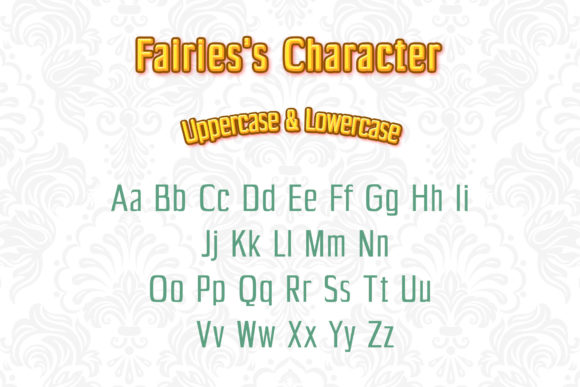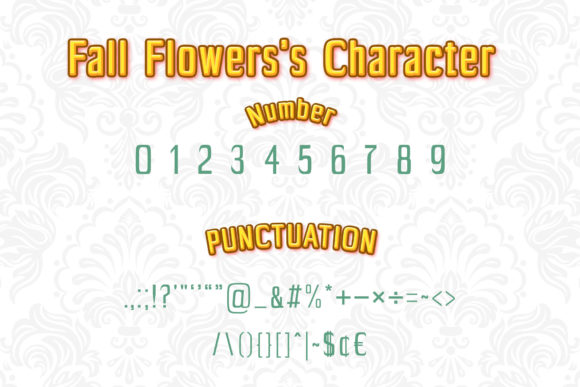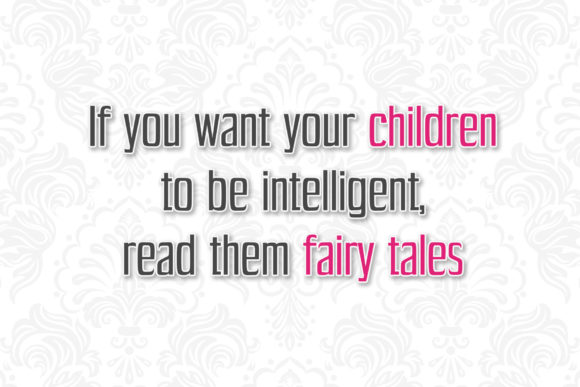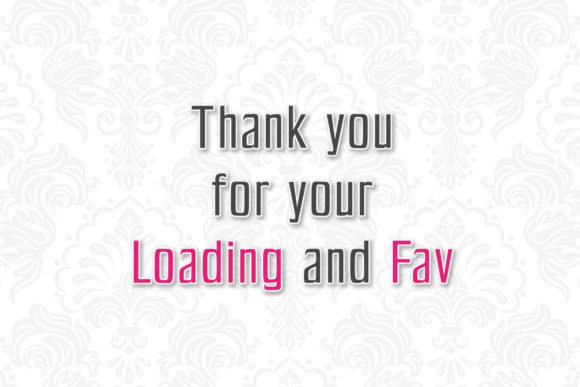
Introducing Fairies Font: The Ultimate Sans Serif for Creative Projects
Are you tired of using the same old fonts for your creative projects? Look no further! Fairies Font is here to revolutionize your designs with its simple yet bold sans serif style. This versatile font can be matched with an incredibly large set of projects, making it a must-have for designers and crafters alike.
What is Fairies Font?
Fairies Font is a modern sans serif font that exudes simplicity and elegance. Its clean lines and bold structure make it perfect for a wide range of applications, from digital designs to print materials. Whether you’re working on a logo, brochure, or social media post, Fairies Font is sure to make your project stand out.
Key Features of Fairies Font
• Simple and Bold Design: Fairies Font boasts a straightforward yet striking design that grabs attention.
• Sans Serif Style: The font’s sans serif style ensures that your text remains clear and readable, even at smaller sizes.
• Highly Versatile: Fairies Font can be used for a vast array of projects, including logos, headings, and body text.
• Easily Readable: The font’s clean lines and simple structure make it easy to read, even for extended periods.
Why Choose Fairies Font?
With so many fonts available, why should you choose Fairies Font for your projects? Here are just a few compelling reasons:
• Uniqueness: Fairies Font offers a fresh and unique perspective on sans serif fonts, setting it apart from more traditional options.
• Flexibility: This font can be used for both digital and print materials, making it an excellent addition to your font library.
• Easy to Pair: Fairies Font can be easily paired with other fonts to create stunning contrast and visual interest.
Using Fairies Font in Your Projects
So, how can you incorporate Fairies Font into your creative projects? Here are a few ideas to get you started:
• Logos and Branding: Use Fairies Font to create a bold and memorable logo that sets your brand apart.
• Digital Designs: Add Fairies Font to your website, social media posts, or email marketing campaigns to add a touch of modernity.
• Print Materials: Use Fairies Font in brochures, flyers, and posters to create eye-catching headings and body text.
Tips for Getting the Most Out of Fairies Font
To maximize the impact of Fairies Font, keep the following tips in mind:
• Experiment with Sizes: Play around with different font sizes to create visual interest and hierarchy.
• Pair with Other Fonts: Combine Fairies Font with other fonts to add contrast and depth to your designs.
• Use it Consistently: Use Fairies Font consistently throughout your project to create a cohesive look and feel.
Author numnim
In conclusion, Fairies Font is an exceptional sans serif font that can elevate your creative projects to new heights. Its simplicity, boldness, and versatility make it an excellent addition to any font library. Whether you’re a designer, crafter, or simply someone looking to add a touch of modernity to your projects, Fairies Font is sure to impress.